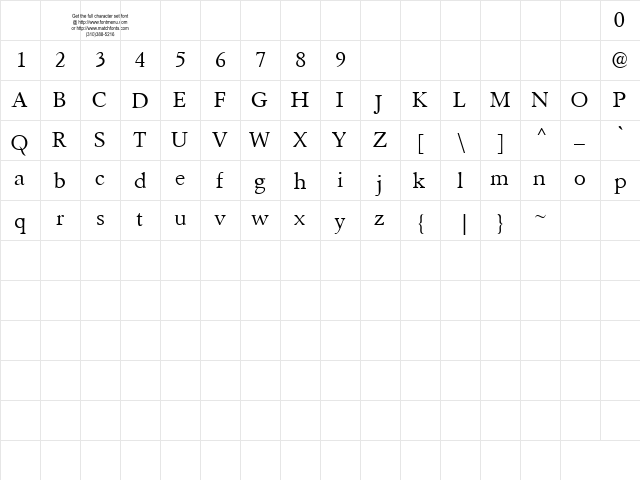
Parlante Tryout Regular
Design Context for Parlante Tryout Typeface
Parlante Tryout is a composed and adaptable typeface that performs quietly and consistently across a wide range of design contexts.